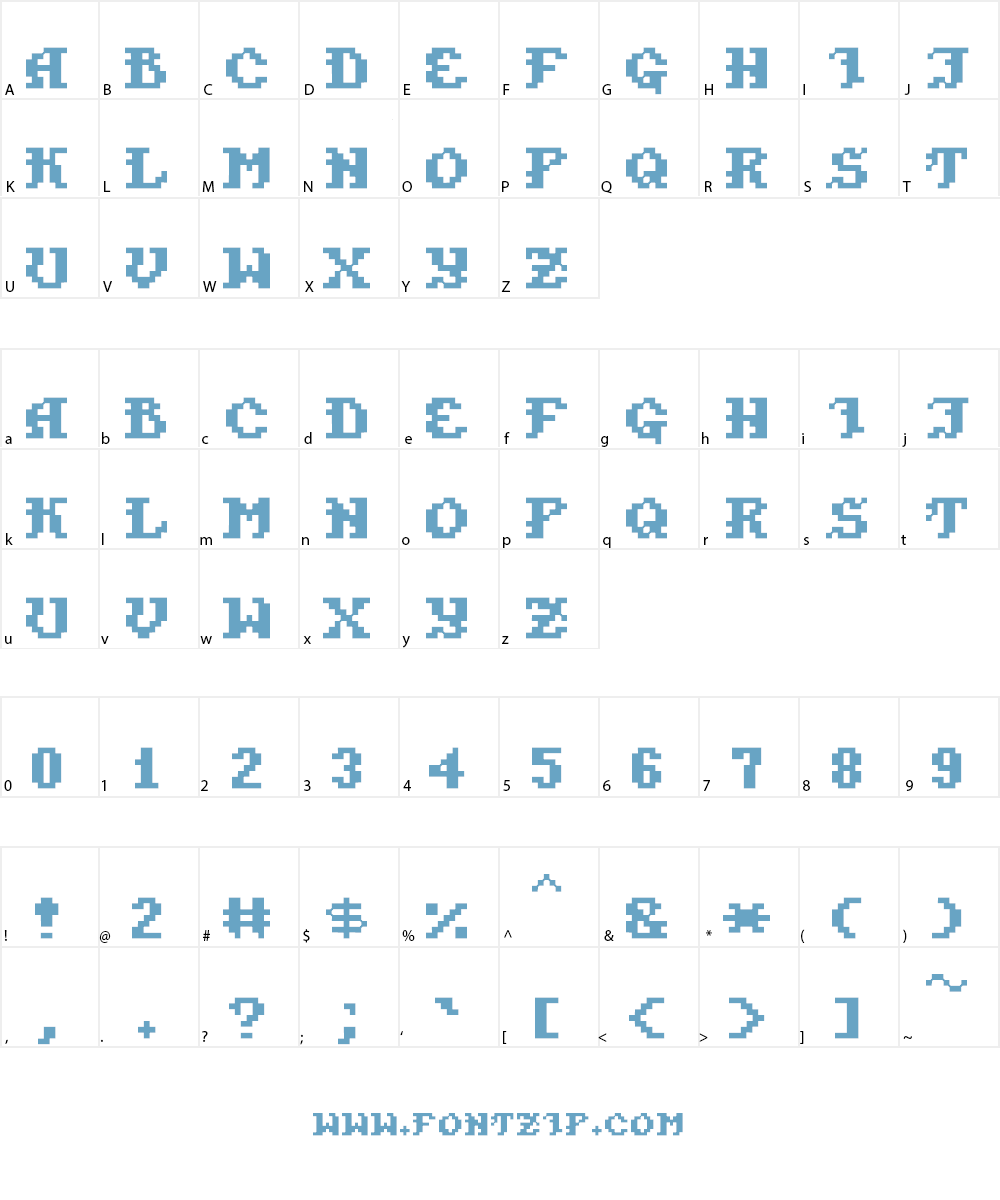
Pixel Takhisis is based the “fancy” fantasy-style writing found in SSI’s classic “Gold Box” series of computer games, such as “Death Knights of Krynn”. Includes full alphabet, extended punctuation, euro.